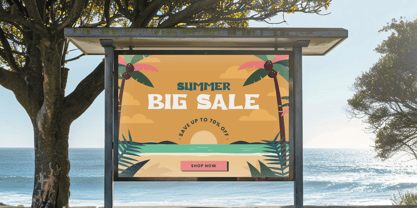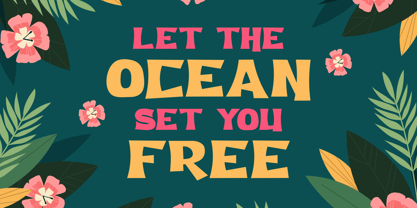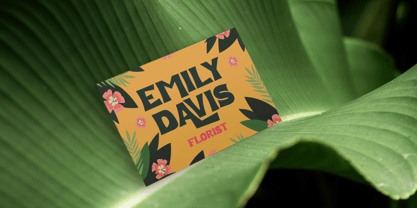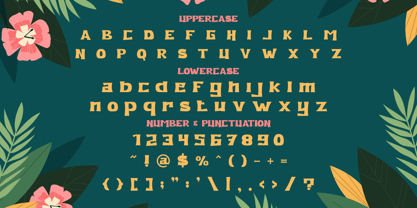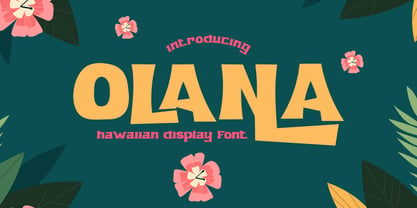
Olana
The Olana Font Family was designed by Putra Novembria Candra Kusuma and published by Putracetol. Olana contains 1 styles. More about this family
Olana Hawai Font is a bold and energetic display typeface inspired by the warmth and vibrancy of tropical island life. Its letterforms are wide and slightly uneven, creating a natural hand-cut look that feels both casual and confident. The strong geometric base gives it structure, while the playful angles and curves add personality and rhythm. Each letter has a distinct balance between boldness and smoothness, making it ideal for attention-grabbing titles without losing its friendly charm. Olana Hawai Font brings the carefree spirit of summer to any design, capturing the essence of joy, sun, and ocean breeze in its visual rhythm. Perfect for branding, posters, packaging, invitations, and advertising materials, this font instantly conveys a fun and tropical vibe. It’s an excellent choice for beach-themed businesses, summer events, surf brands, or travel promotions that need a touch of coastal flair. Olana Hawai Font also works beautifully in logos, magazine covers, or bold headlines that require both personality and readability. Its unique shapes bring warmth and positivity, making it ideal for creative designers who want their work to stand out with a touch of the islands.